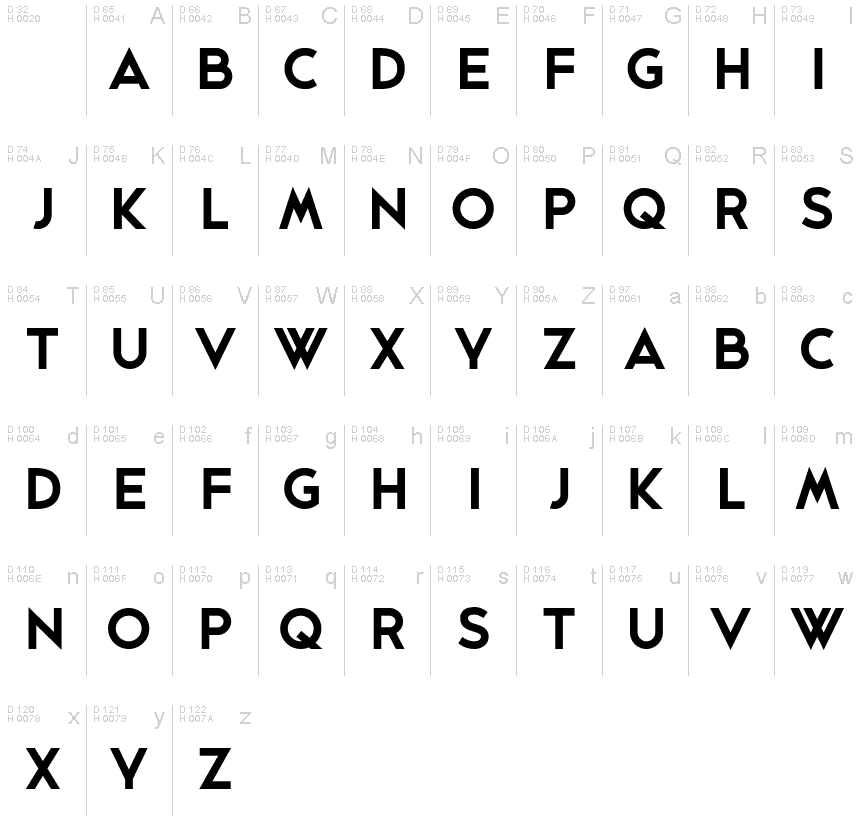
Geminies Regular
Geminies, created by Vladimir Nikolic, is a versatile and dynamic sans-serif font that adds a touch of modernity to any project. With its semi-expanded width, Geminies exudes an air of sophistication and professionalism.
Perfect for branding materials, such as logos and business cards, this font typeface demands attention and makes a lasting impression. Additionally, Geminies is well-suited for editorial designs like magazines or books, providing clarity and readability for extended reading sessions.
Whether it's a sleek website or eye-catching advertisements, this font is sure to elevate your design projects to the next level.